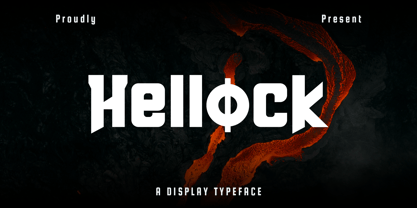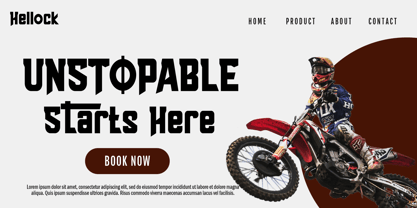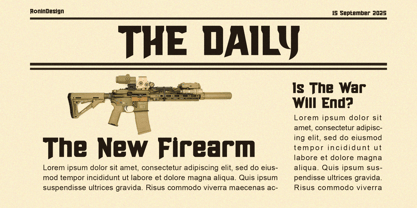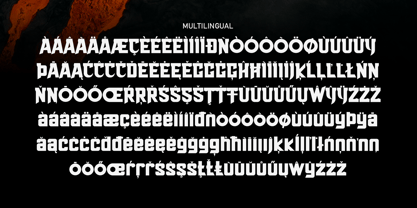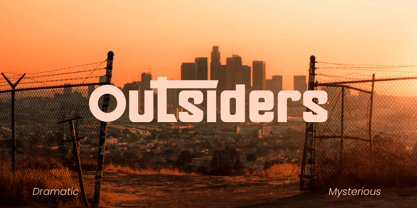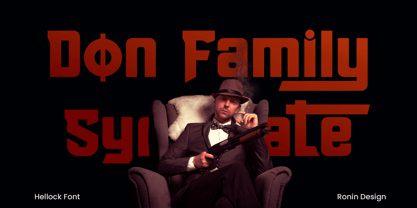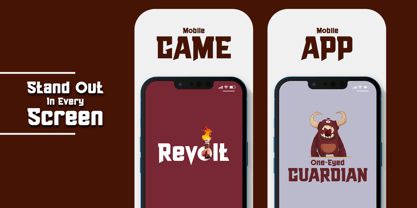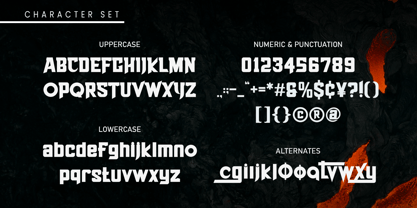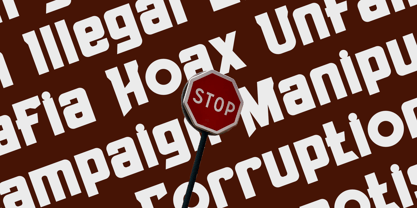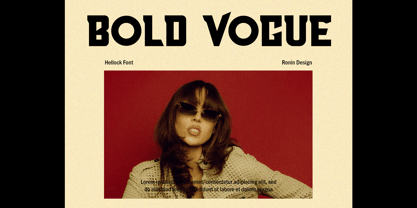
Hellock
by Ronin Design
The Hellock Font Family was designed by RoninDesign and published by Ronin Design. Hellock contains 1 styles.
Hellock typeface is bold, angular, and experimental, combining geometric blockiness with sharp, almost fractured cuts. The uppercase feels gothic-futuristic, evoking a sense of strength and rebellion, while the lowercase maintains readability with smoother forms.
Hellock ideal for magazine covers, posters, gaming titles, and digital art projects. The jagged cuts in certain characters give it a rebellious, raw energy, as if carved out of stone or metal, while still being playful enough for pop-culture-inspired work.
• Uppercase and lowercase
• Various alternates
• Ton of glyphs
• Multilingual accent